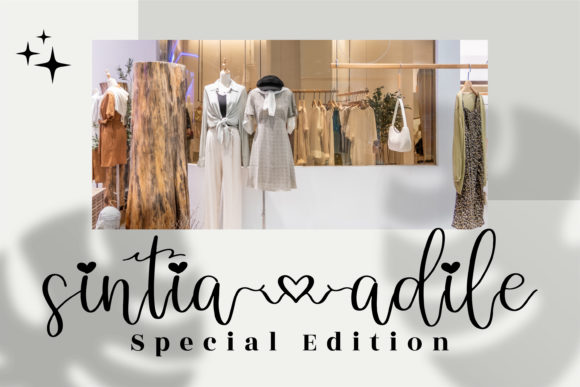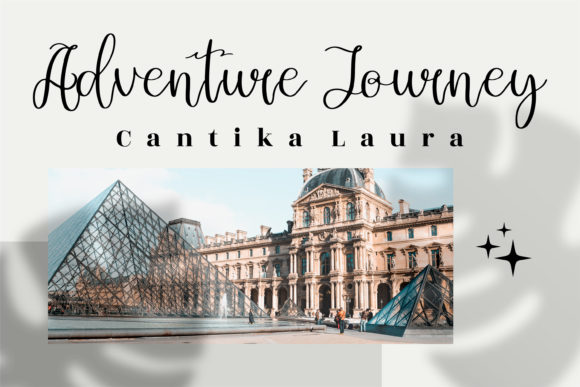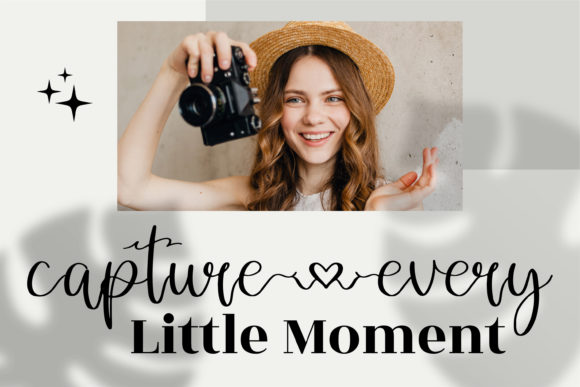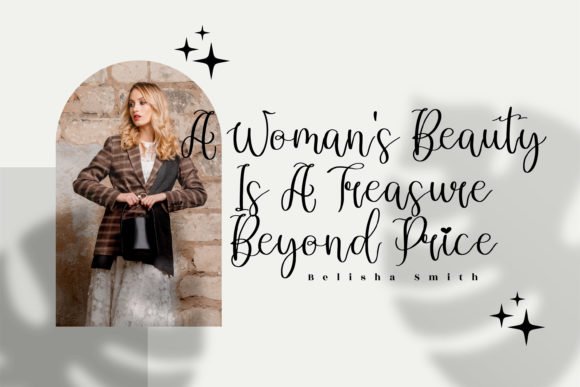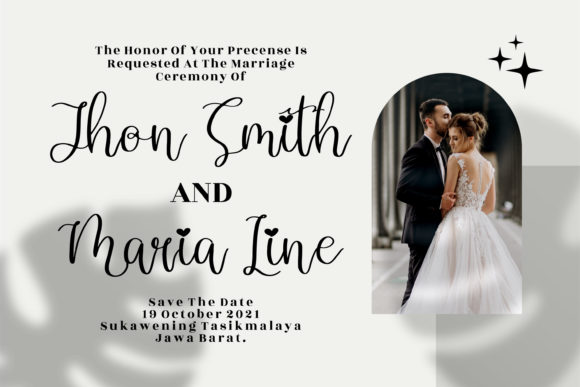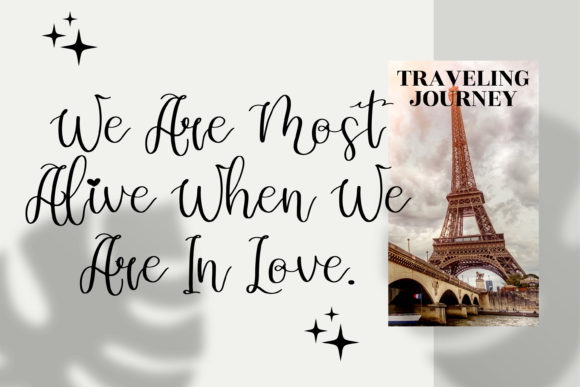
Dandelion Pelangi Font: Elevate Your Designs with Elegance and Charm
In the world of typography, few fonts capture the essence of romance and sweetness as beautifully as the Dandelion Pelangi Font. This exquisite calligraphy typeface is designed to add a touch of luxury to any design project, making it a perfect choice for designers and crafters looking to infuse their creations with elegance and charm.
The Unique Charm of Dandelion Pelangi
Dandelion Pelangi stands out with its distinctive feature: characters that gracefully dance along the baseline. This fluid movement gives the font a dynamic and lively feel, making it ideal for projects that require a touch of sophistication and whimsy. Whether you’re working on wedding invitations, branding materials, or digital content, Dandelion Pelangi promises to elevate your designs to new heights.
One of the key advantages of the Dandelion Pelangi Font is its PUA (Private Use Area) encoding. This means that accessing the font’s extensive range of glyphs and ligatures is incredibly straightforward. Designers can easily incorporate these special characters into their work, allowing for a high degree of customization and creativity. With PUA encoding, you can unlock the full potential of Dandelion Pelangi and make your designs truly stand out.
The versatility of Dandelion Pelangi makes it suitable for a wide range of design projects. Here are some of the areas where this font can make a significant impact:
- Wedding and Event Stationery: Create beautiful wedding invitations, save-the-date cards, and event posters that exude romance and sophistication.
- Branding and Packaging: Add a touch of luxury to your brand’s packaging and marketing materials, making them more appealing to your target audience.
- Digital Content: Enhance your blog posts, social media graphics, and website content with elegant typography that captures readers’ attention.
- Art and Craft Projects: Incorporate Dandelion Pelangi into your handmade crafts, such as journals, cards, and scrapbooking projects, for a personalized touch.
Why Choose Dandelion Pelangi Font?
With so many fonts available, why should Dandelion Pelangi be your top choice? Here are a few compelling reasons:
- Unique Aesthetic: Dandelion Pelangi offers a distinctive look that can set your designs apart from the crowd.
- Ease of Use: Thanks to PUA encoding, you can easily access and use the font’s advanced features, even if you’re not a typography expert.
- High Versatility: This font can be used across various design projects, making it a valuable addition to your typography collection.
- Romantic and Sweet: The font’s romantic and sweet style is perfect for projects that require a touch of warmth and elegance.
Dandelion Pelangi Font is a beautiful and versatile calligraphy typeface that can add a touch of luxury and charm to any design project. With its unique aesthetic, ease of use, and high versatility, it’s an excellent choice for designers and crafters looking to create stunning and memorable designs. Whether you’re working on wedding stationery, branding materials, or digital content, Dandelion Pelangi is sure to elevate your creations and leave a lasting impression.